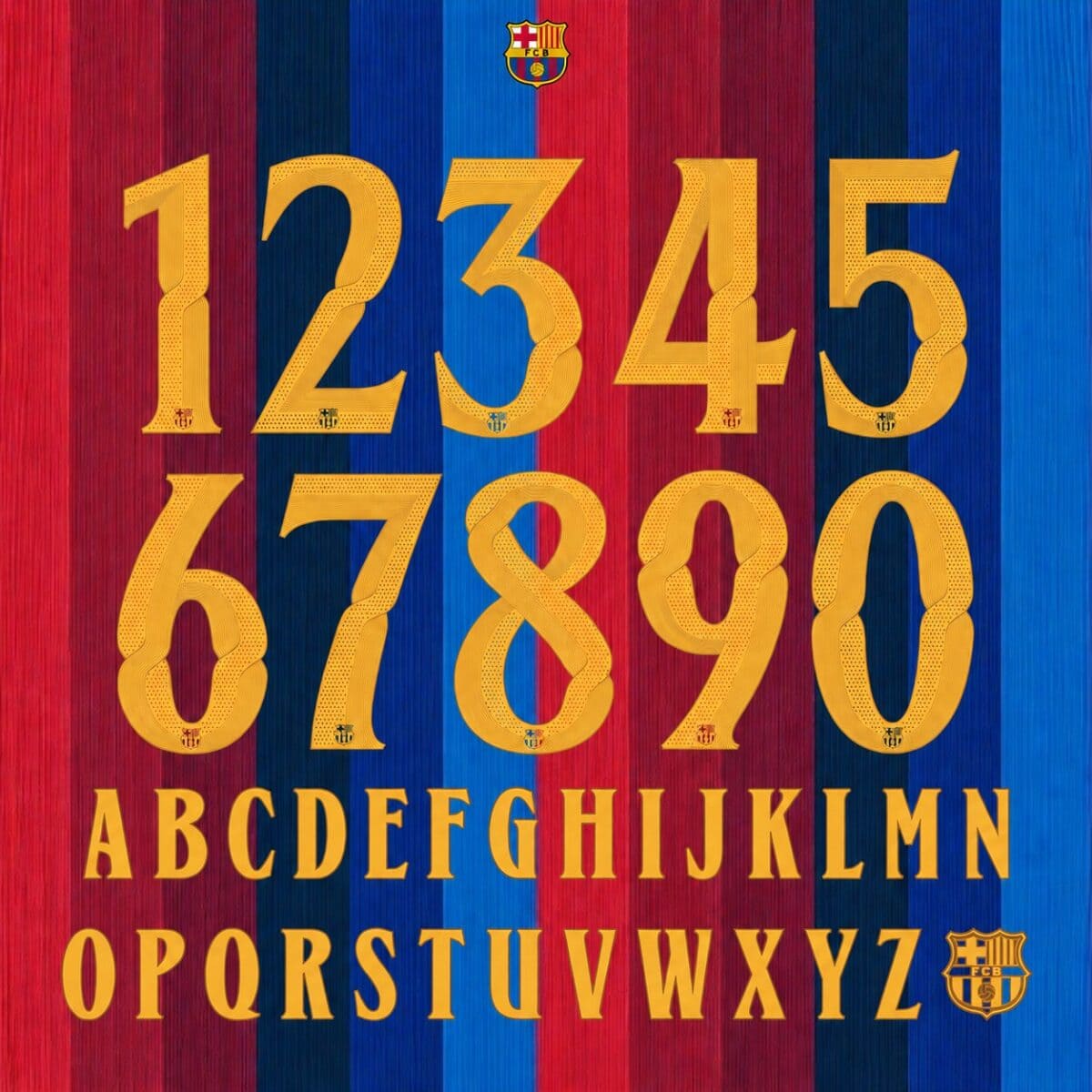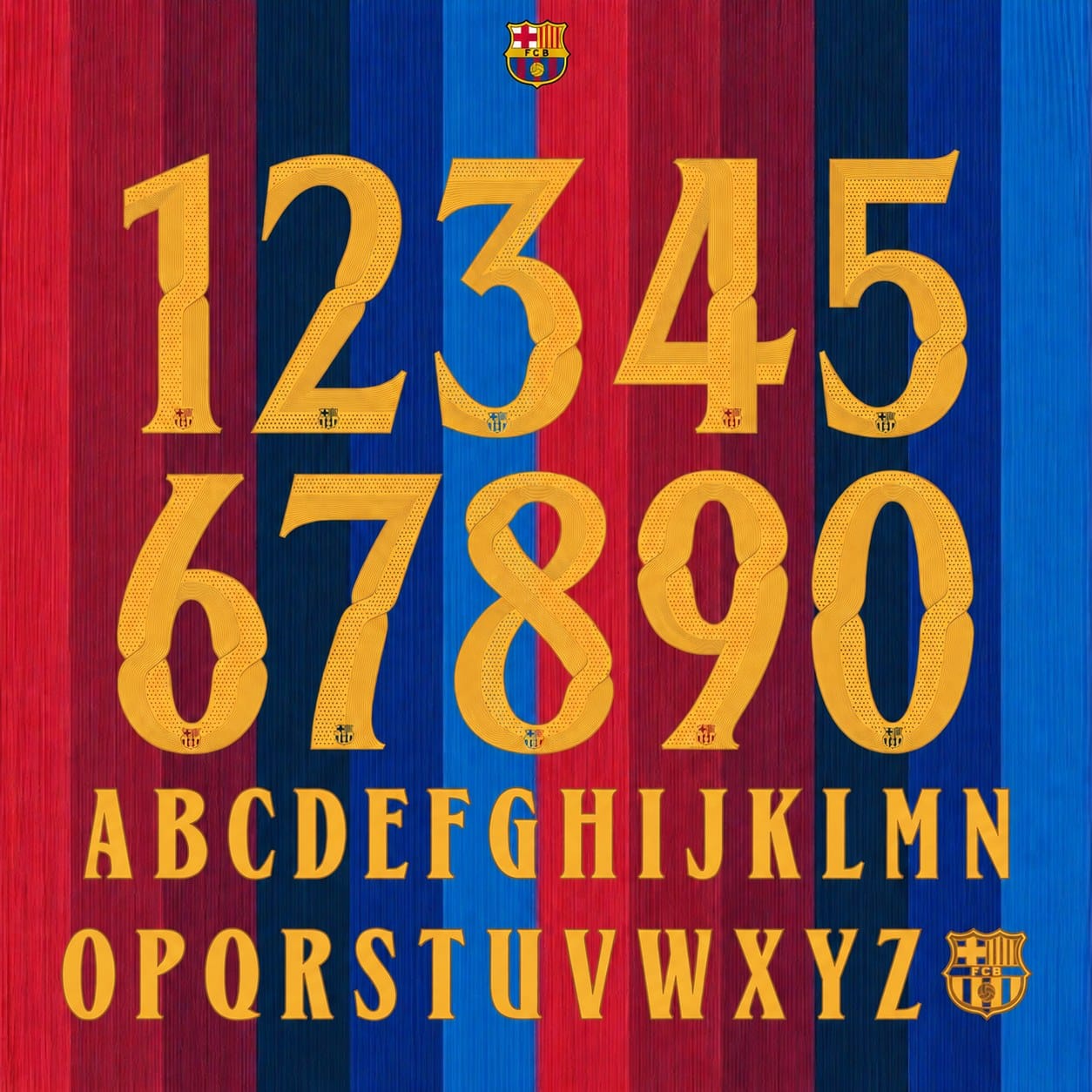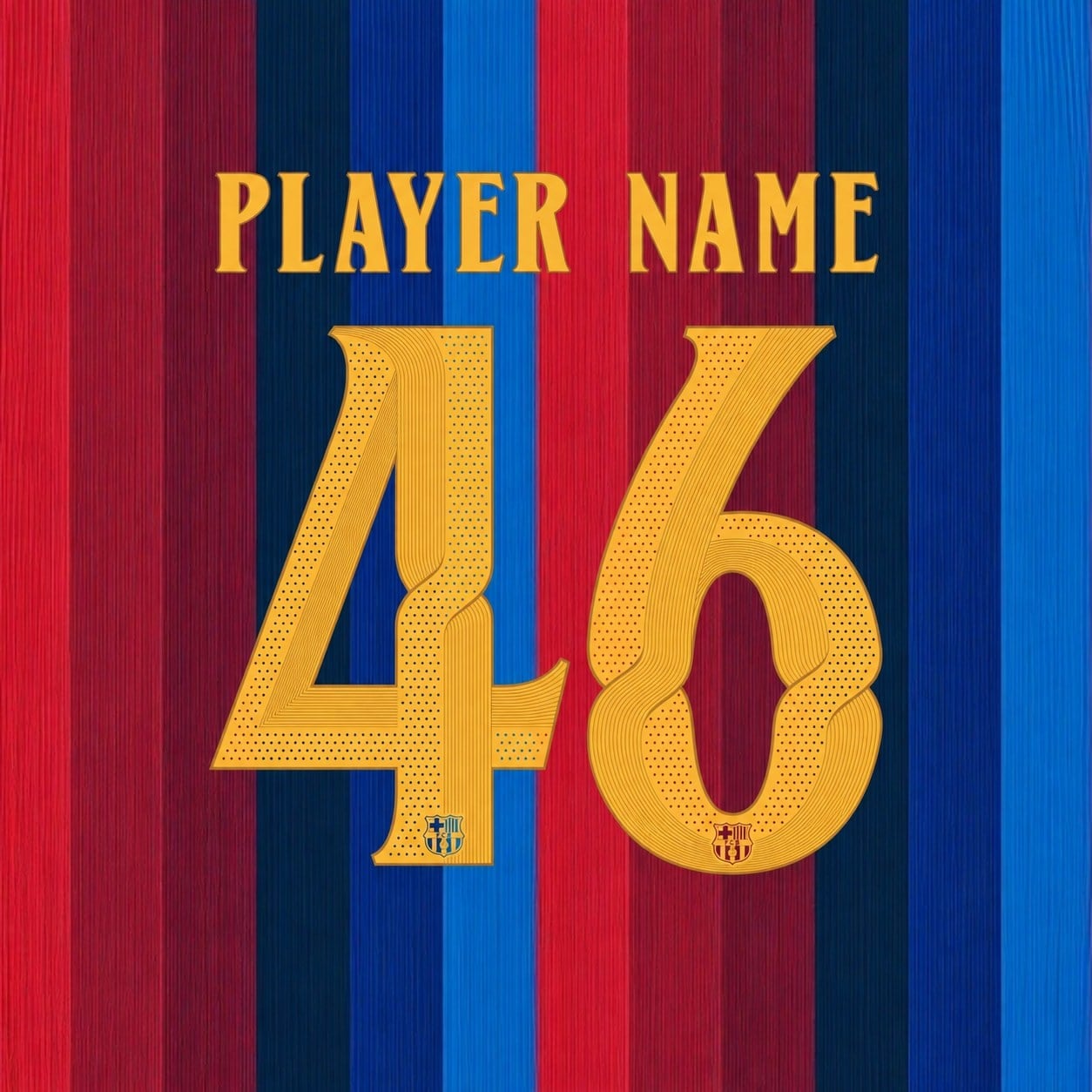
Complete Barcelona 2026/27 font set — every letter and every number in one kit, in this season’s lettering style, gold colourway as shown.
- Full set included: all letters A–Z + all numbers 0–9, exactly as shown
- Fine crest detailing inside the characters
- Make any name & number combination (e.g. YAMAL 10) — fits adult and kids jerseys